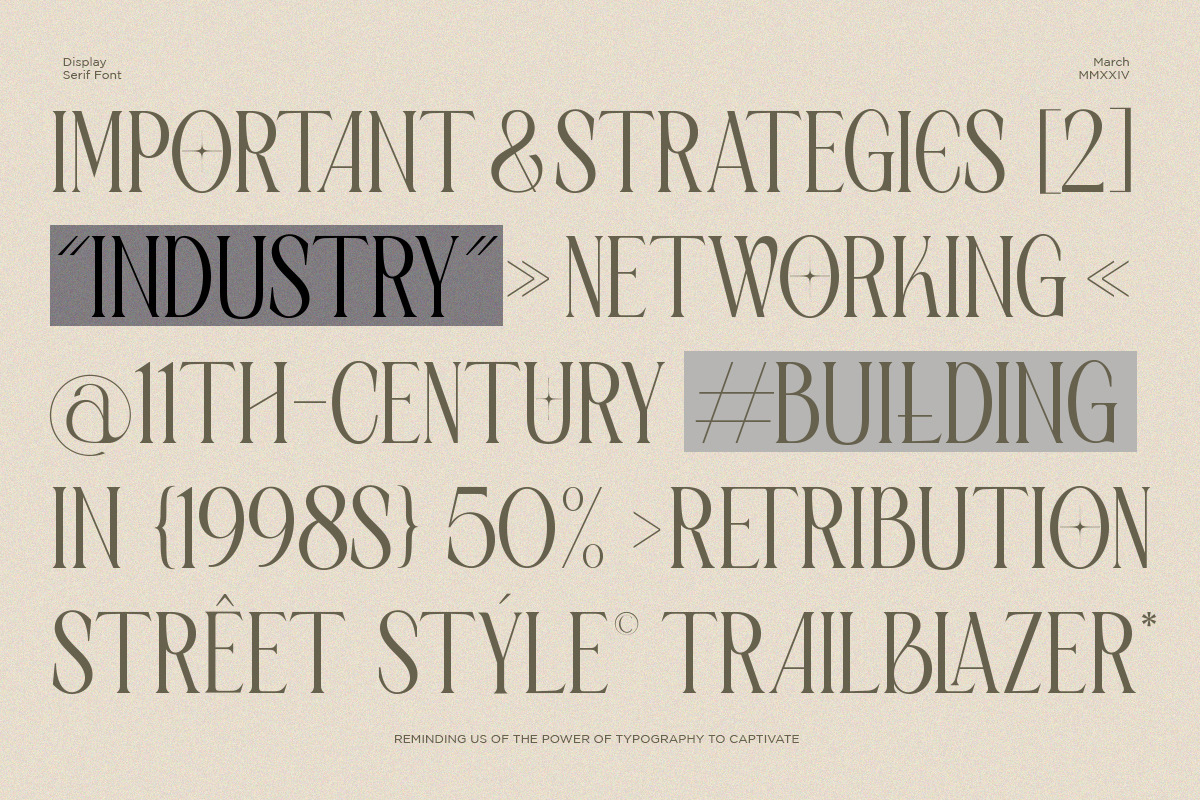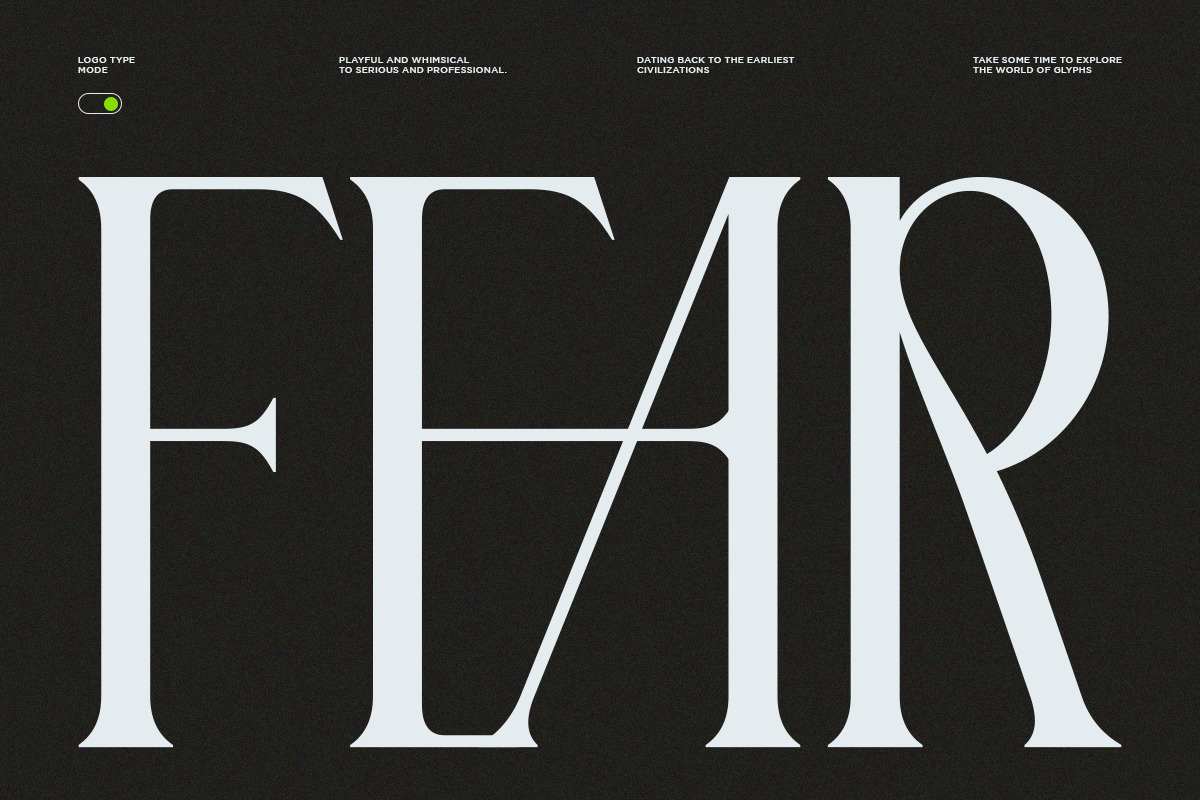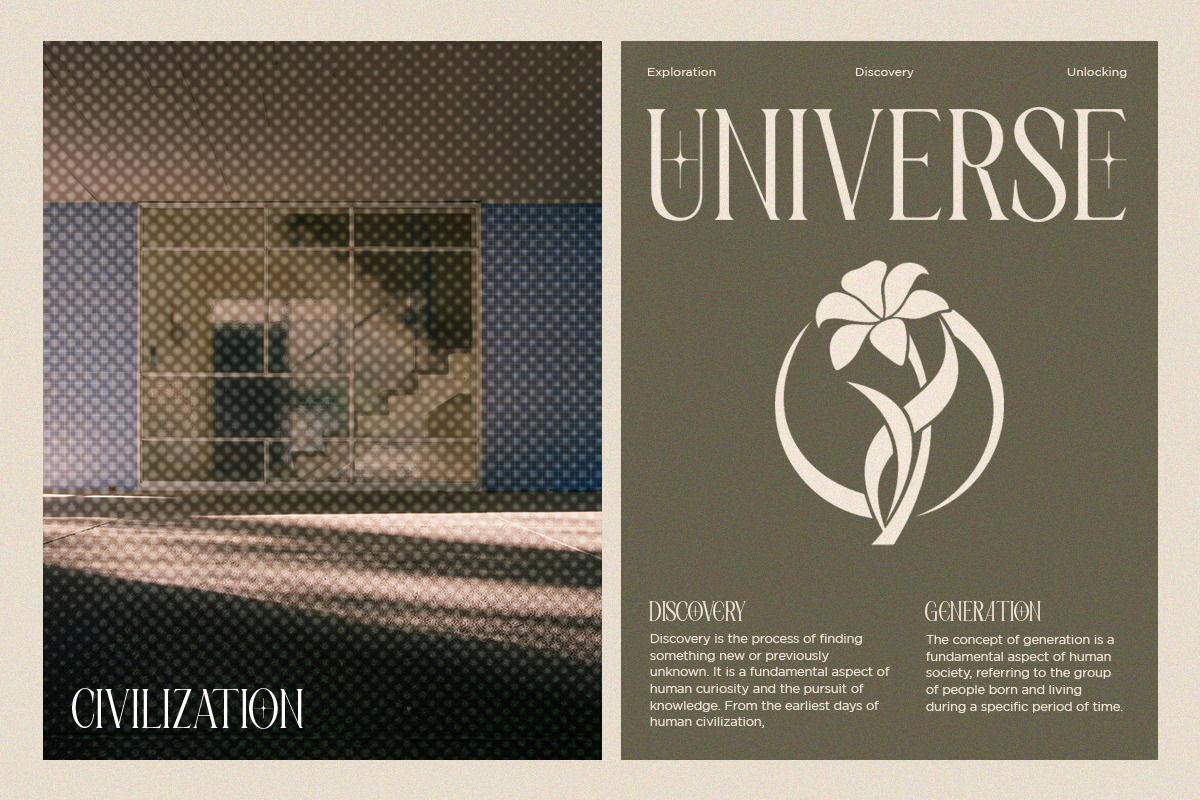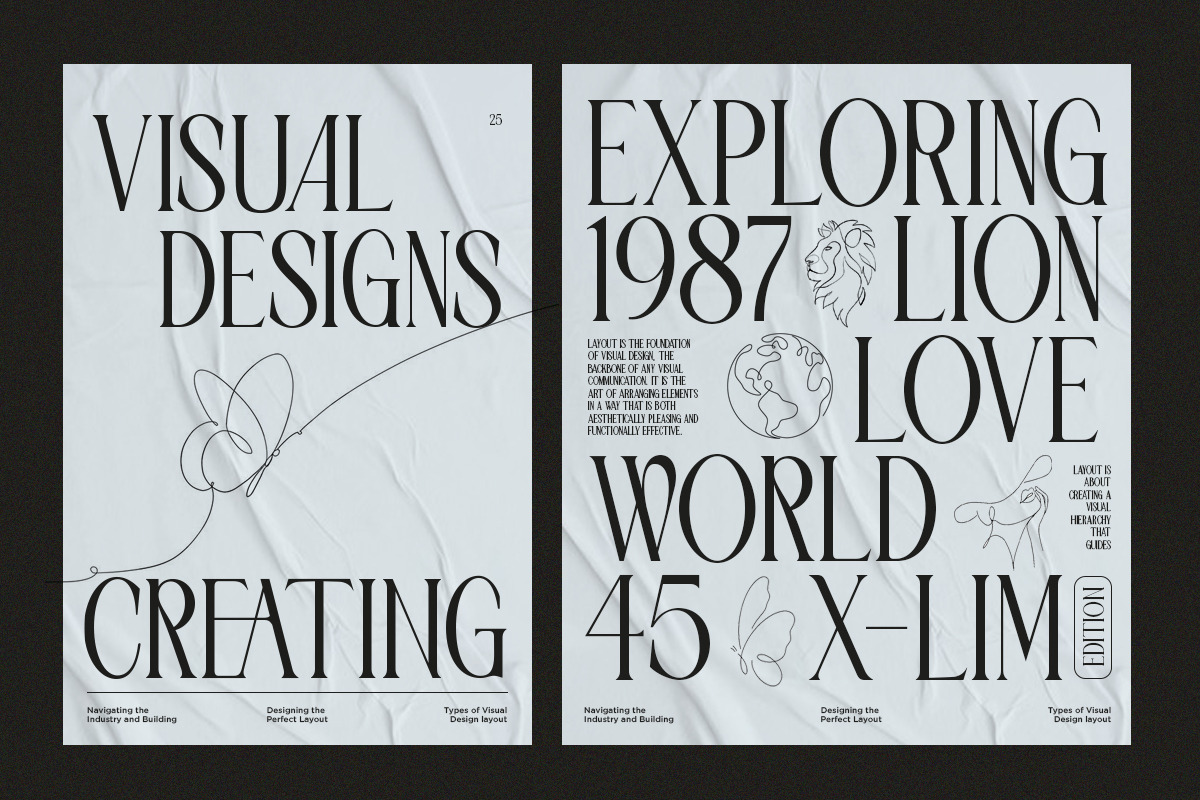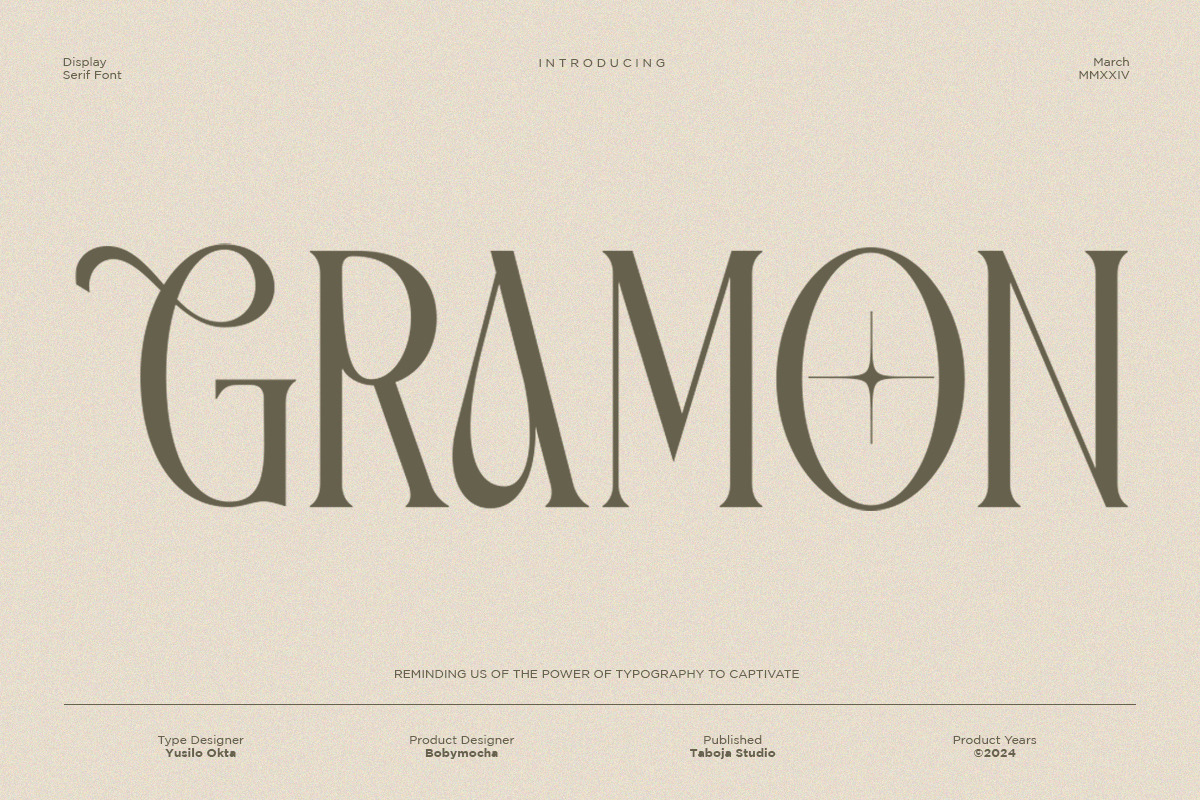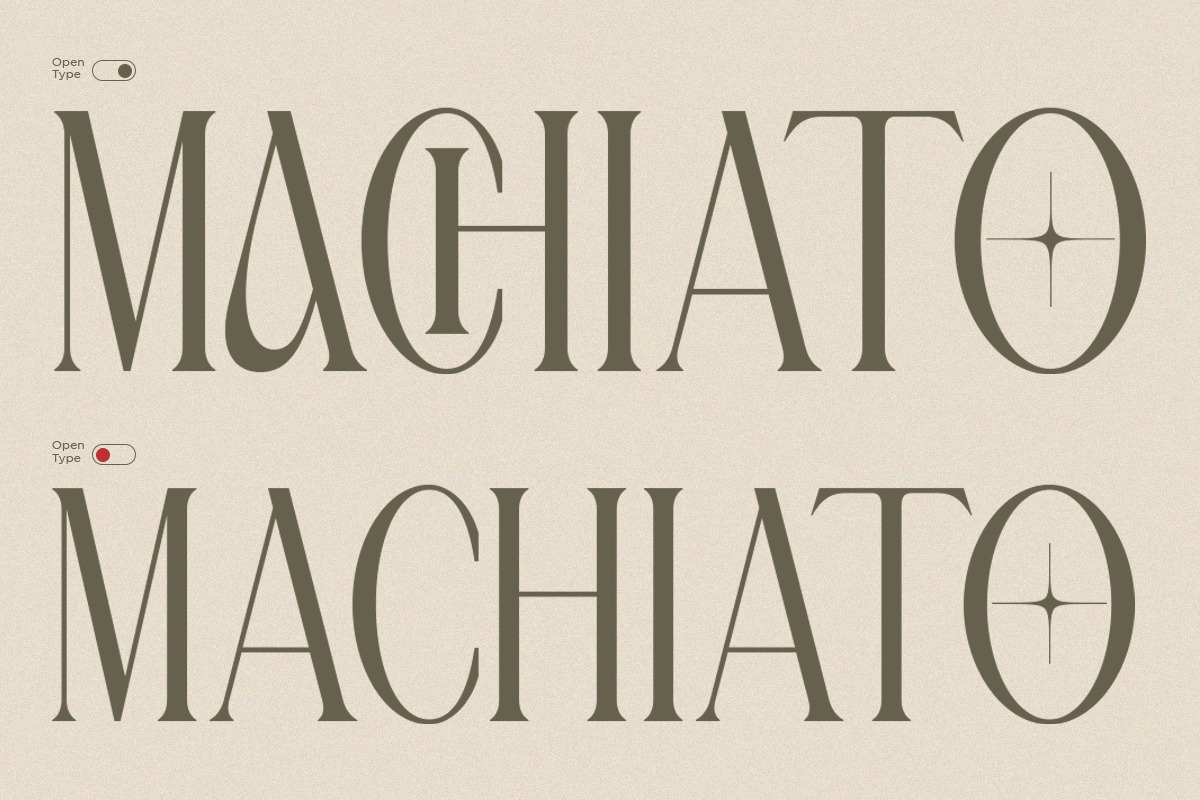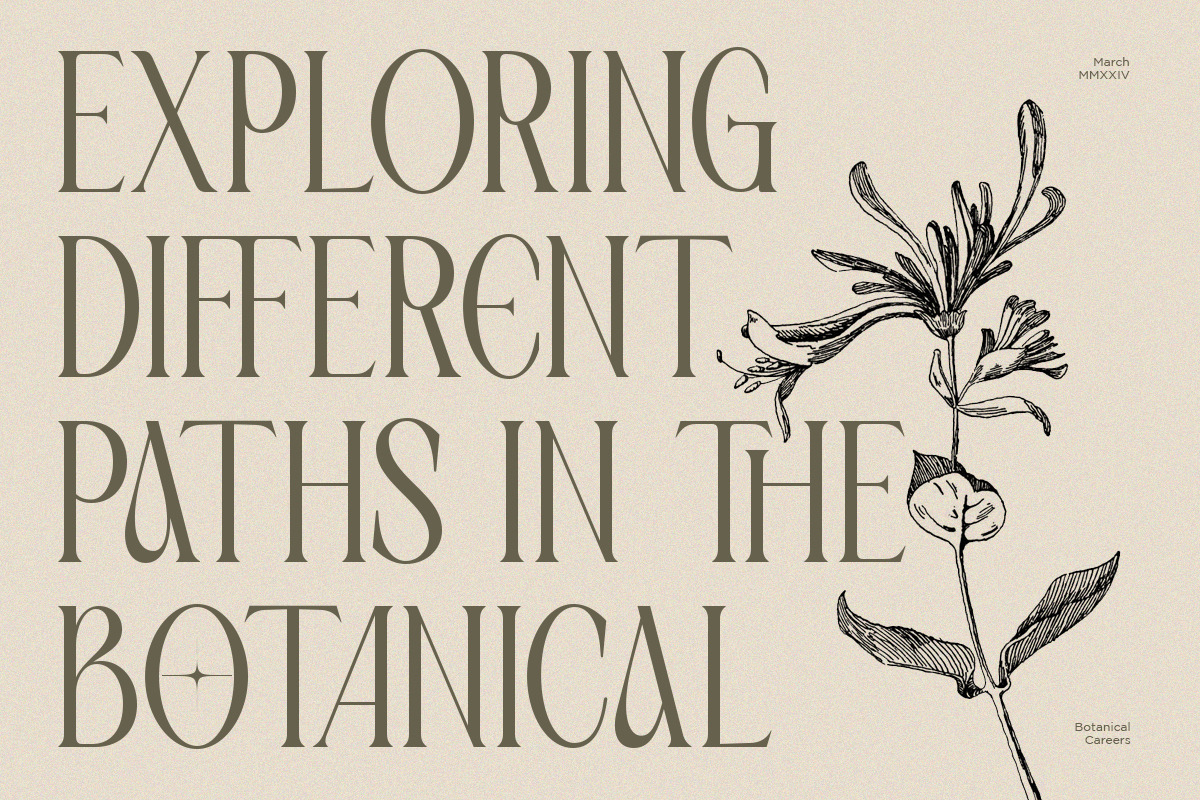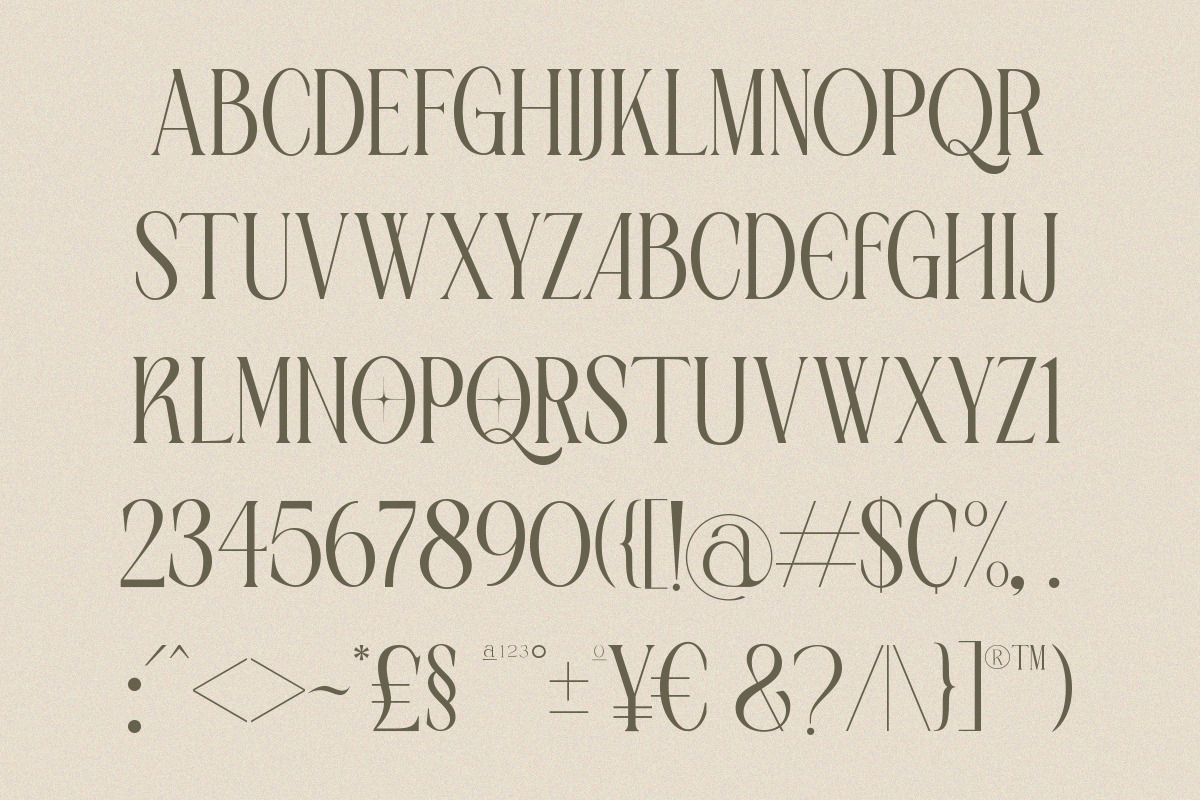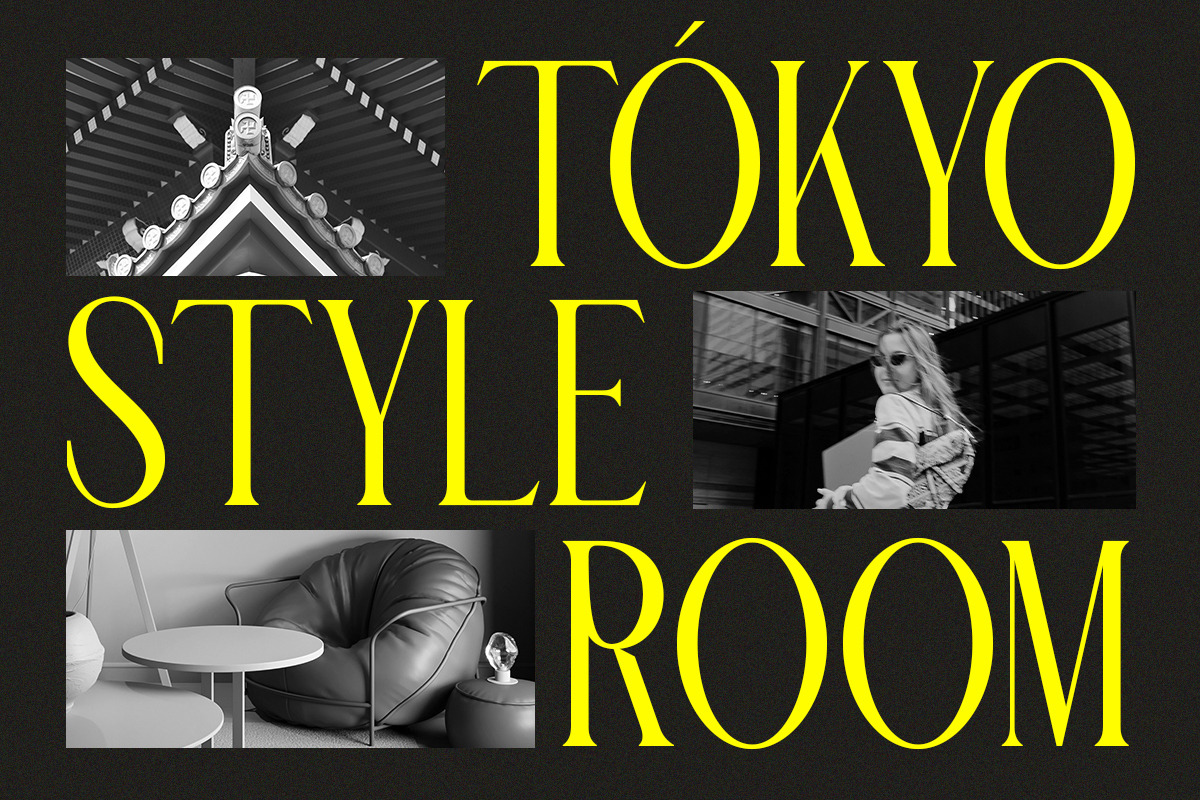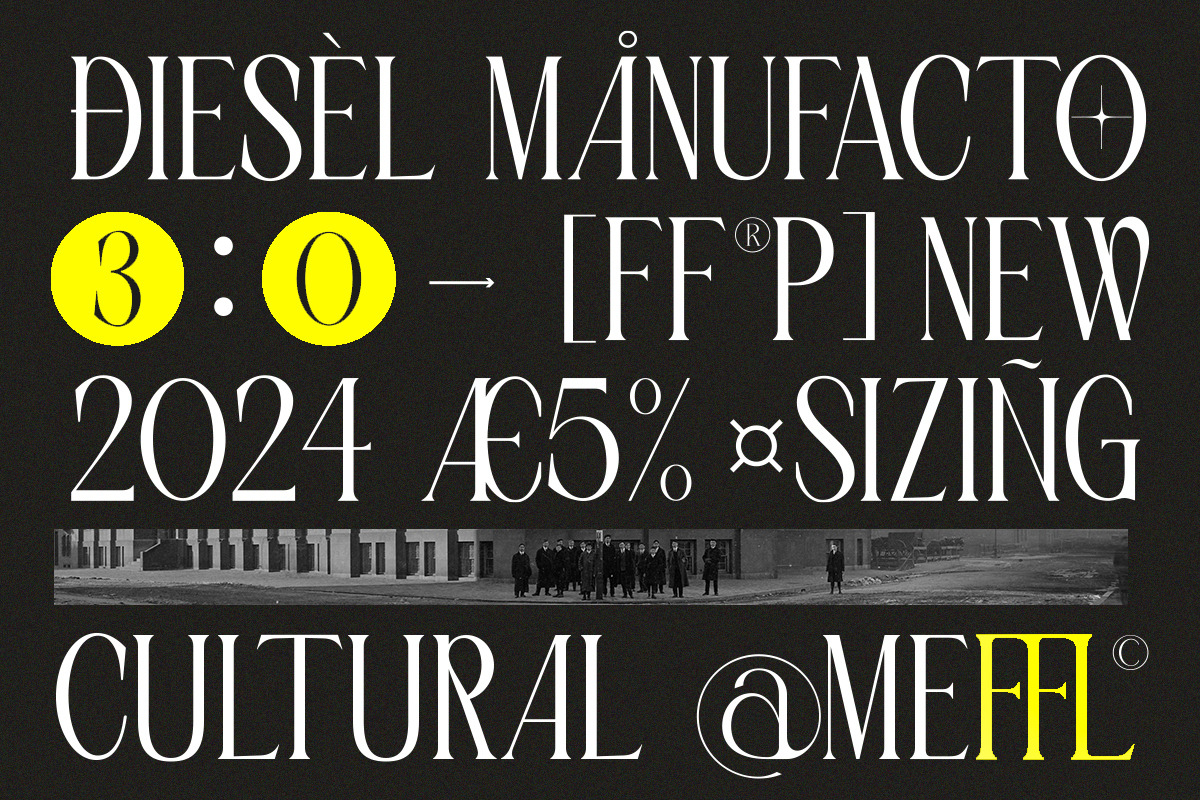
TBJ Gramon Condensed Stylish Font
Introducing Gramon – a stunning condensed font that blends style and elegance in every detail. Designed to convey a modern and sophisticated impression, Gramon features sleek and elegant letterforms with harmonious proportions. Each character is meticulously crafted to provide a contemporary feel.
- 100 Various Alternates And Ligatures